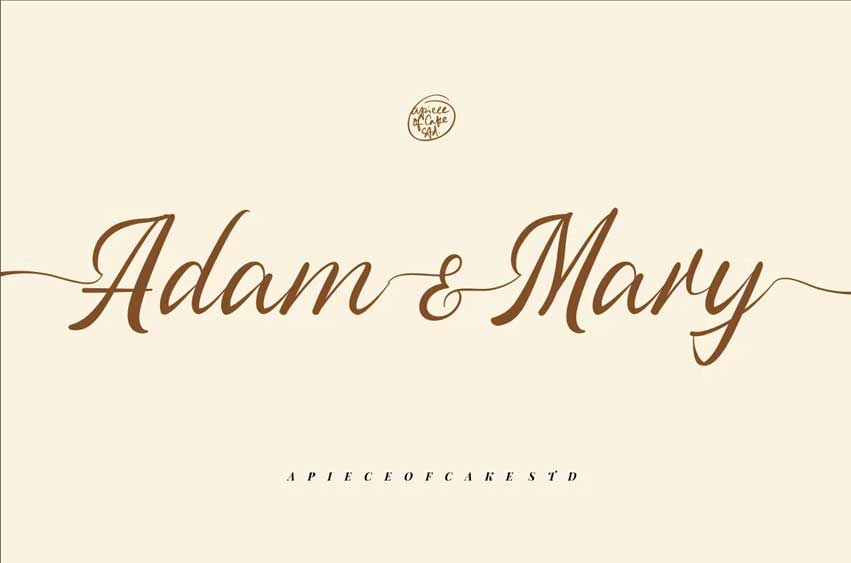
Adam and Mary Font is a beauty script font suitable for your design project needs, such as; wedding themes, social media posts, quotes, overlays on images, tagline logos, posters, print needs, website banners, and more.
Features
- A set of uppercase and lowercase glyphs
- Number, symbol, and punctuation
- Multilingual Support
- Some Swashes, and Alternates